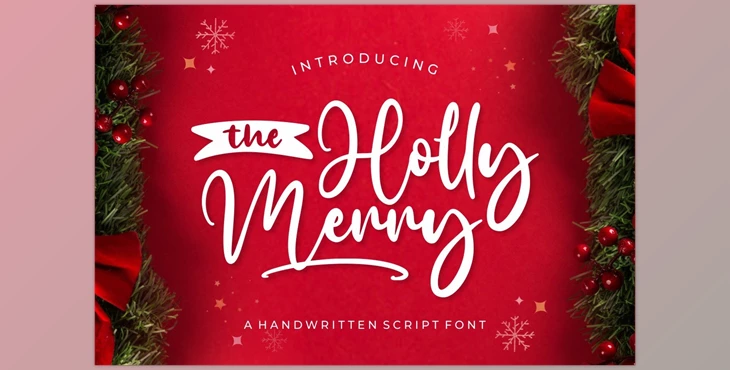
The Holly Merry Script Font: Presenting The Holly Merry, a chic script font crafted to meet the diverse needs of your design projects. Whether working on Christmas themes, weddings, Valentine's projects, social media posts, quotes, overlays, tagline logos, posters, print materials, website banners, and more, The Holly Merry brings style and versatility to your creative endeavors.
Some great features of The Holly Merry Script Font:
- Uppercase and lowercase glyphs for a complete character set
- Numbers, symbols, and punctuation to cater to various design elements
- Multilingual support, ensuring compatibility with different languages
- Swashes and ligatures for added decorative elements and design flexibility